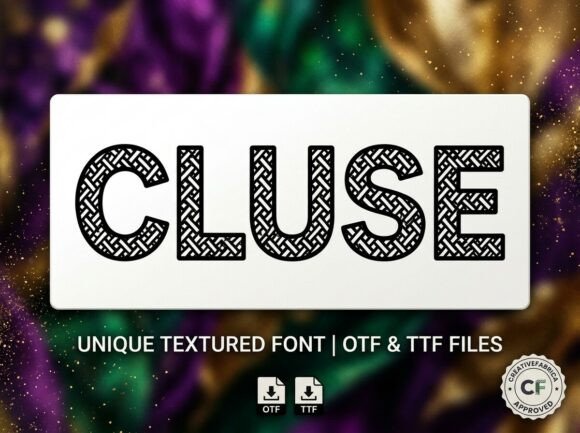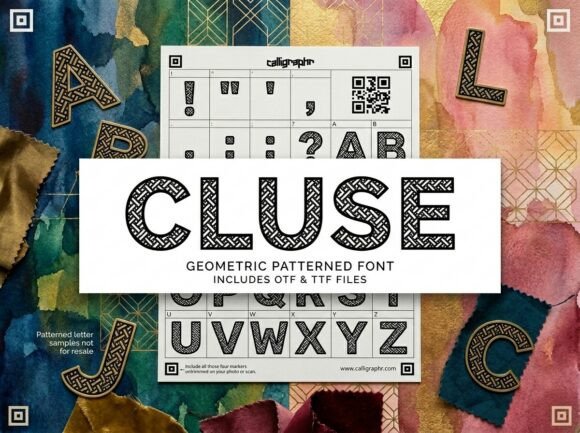
Discover the Unique Charm of Cluse Font: A Masterpiece for Textile Branding and Artisanal Design
In the world of typography, few fonts manage to capture the essence of artisanal craftsmanship and textured elegance as beautifully as Cluse. This stunning display typeface is a game-changer for designers and crafters looking to infuse their projects with a sense of handmade sophistication. With its bold, hollow sans-serif letterforms and intricate, hand-drawn cross-hatch basketweave pattern, Cluse is the perfect choice for those seeking to add a touch of bespoke charm to their designs.
The Story Behind Cluse: A Labor of Love
Cluse is more than just a font – it’s a story woven with intricate detail and a deep appreciation for the art of traditional craftsmanship. The brainchild of talented typeface designers, Cluse was created to evoke the feeling of handwoven textiles, bringing to life the concept of “textural-and-tailored” design. Each letterform is meticulously crafted, featuring bold, hollow shapes that are masterfully filled with a rhythmic, hand-drawn cross-hatch pattern reminiscent of a delicate basketweave.
Unleashing Creativity with Cluse: Endless Possibilities for Designers and Crafters
Whether you’re a designer looking to elevate your branding projects or a crafter seeking to add a personal touch to your handmade goods, Cluse offers endless possibilities for creative expression. This versatile font is ideal for a wide range of applications, including:
- Independent Textile Branding: Give your textile brand a unique identity with Cluse’s artisanal charm, perfect for labels, packaging, and marketing materials.
- Handcrafted Home Decor Labels: Add a touch of elegance to your handmade home decor items with Cluse’s sophisticated, woven-inspired aesthetic.
- Artisanal Paper Goods: Elevate your stationery, cards, and paper crafts with Cluse’s distinctive, hand-drawn texture.
- Social Media Headers: Make a statement on social media with Cluse’s bold, eye-catching design, perfect for highlighting your brand’s personality and style.
The Artisanal Personality of Cluse: What Sets it Apart
Cluse’s heavy decorative weight and artisanal personality make it a standout in the world of typography. The font’s unique blend of bold, hollow letterforms and delicate, hand-drawn patterns creates a visually striking effect that’s both elegant and rustic. This distinctive character makes Cluse the perfect choice for designers and crafters seeking to add a touch of authenticity and craftsmanship to their projects.
Tips for Getting the Most Out of Cluse
To truly harness the creative potential of Cluse, consider the following tips:
- Experiment with Color: Play with different color palettes to bring out the intricate details of Cluse’s cross-hatch pattern.
- Mix and Match: Combine Cluse with other fonts to create visually interesting contrasts and add depth to your designs.
- Emphasize Texture: Use Cluse’s textured aesthetic to add a tactile feel to your digital designs, making them more engaging and memorable.
Conclusion: Elevate Your Designs with Cluse
Cluse is more than just a font – it’s a key to unlocking a world of creative possibility. With its unique blend of bold, hollow letterforms and delicate, hand-drawn patterns, Cluse offers designers and crafters a chance to infuse their projects with a sense of artisanal charm and sophistication. Whether you’re working on textile branding, handcrafted home decor labels, artisanal paper goods, or social media headers, Cluse is the premier choice for those seeking to add a touch of bespoke elegance to their designs.
So why settle for ordinary when you can create something truly extraordinary with Cluse? Dive into the world of textured typography and discover the limitless potential of this stunning display typeface.